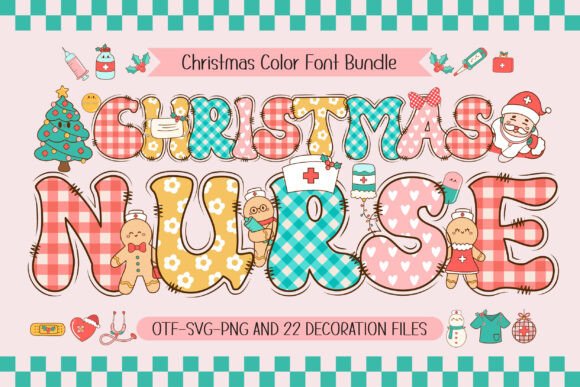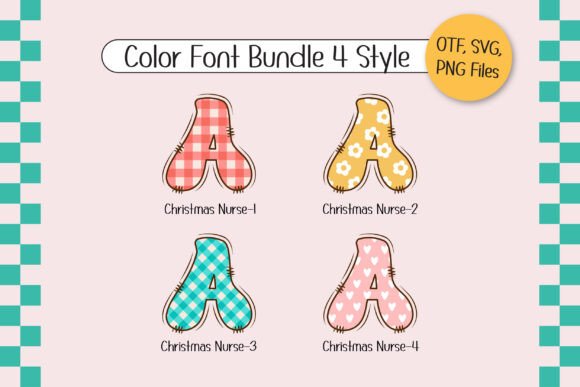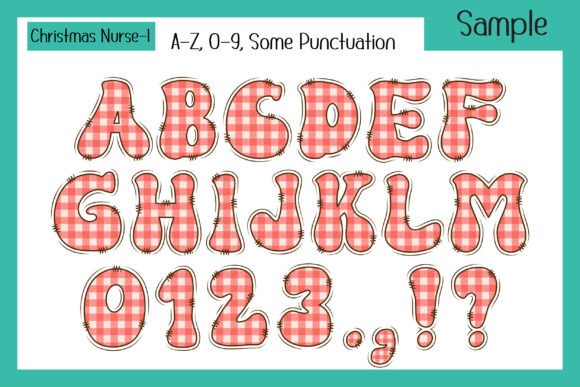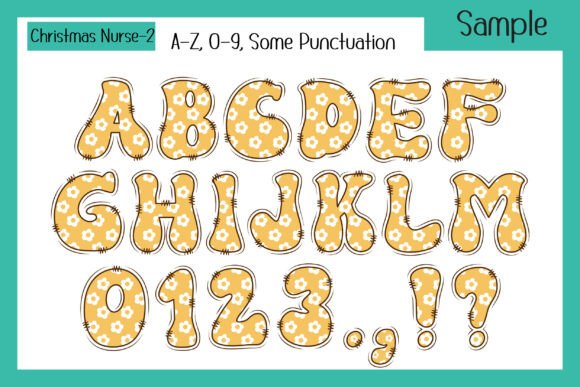
Christmas Nurse Font: A Groovy Retro Display Font for DIY Crafts
About the Christmas Nurse Font
Get ready to be inspired by Christmas Nurse Font, a fresh and dynamic typeface for modern creators. Introducing “Christmas Nurse” a groovy-style font that blends festive Christmas cheer with fun nurse design patterns. Featuring sweet retro colors, this playful font is perfect for celebrating the nursing profession during the holidays. The set includes four theme color fonts and 22 bonus matching clip arts, making it ideal for nurse sublimation projects, DIY nurse crafts, nurse party decorations, T-shirts, branding, custom DIY craft projects, personalized names, and more. “Christmas Nurse” adds a whimsical, professional touch to your holiday-themed nurse designs!